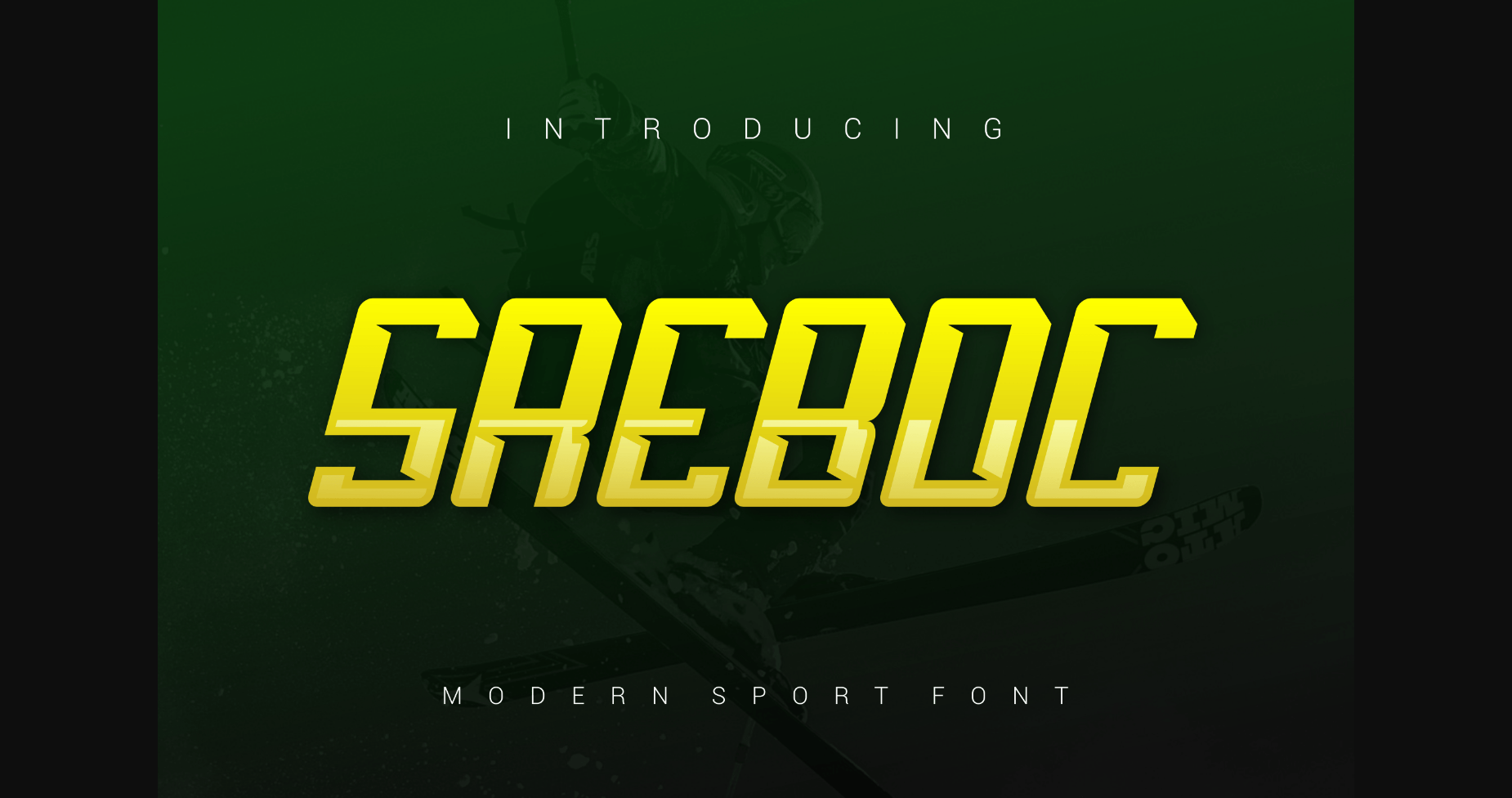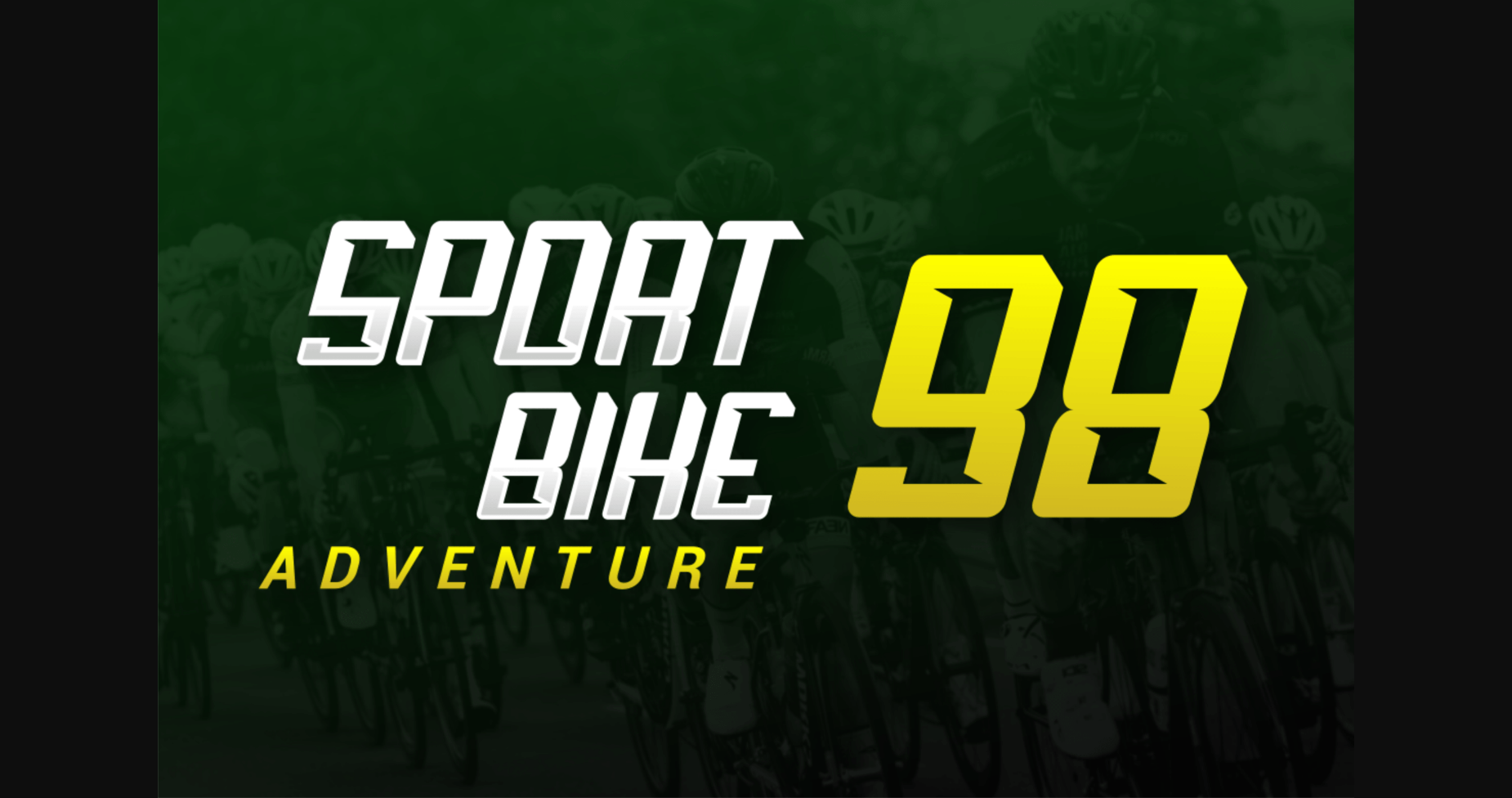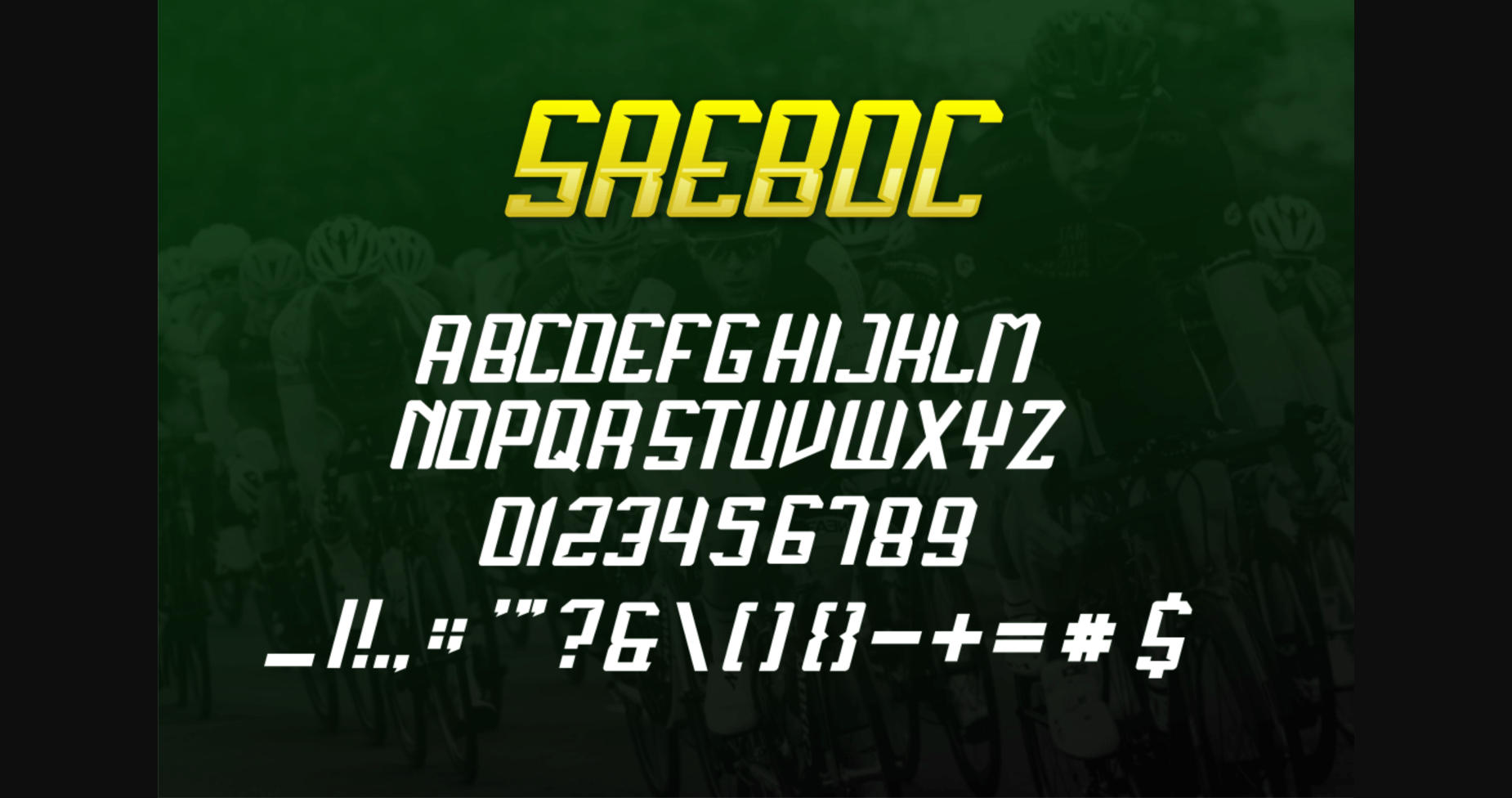
Sreboc Font
About Sreboc Font
Sreboc is designed to draw attention and highlight any project that requires a bold feel. It looks powerful and is created to add a vibrant touch to your sport-inspired designs. Suitable for sports design, team, jersey, league, movie, documenter, film, logo, poster, game, book cover, headlines, title, and many more projects.